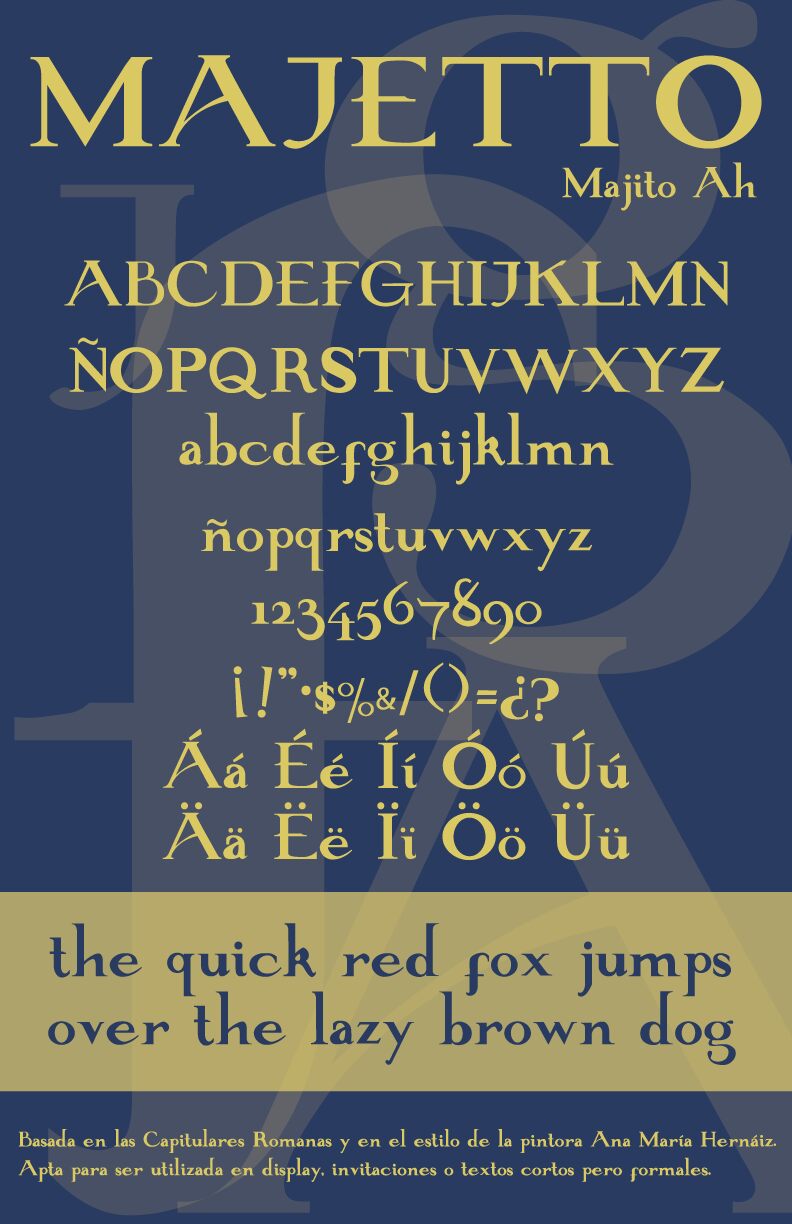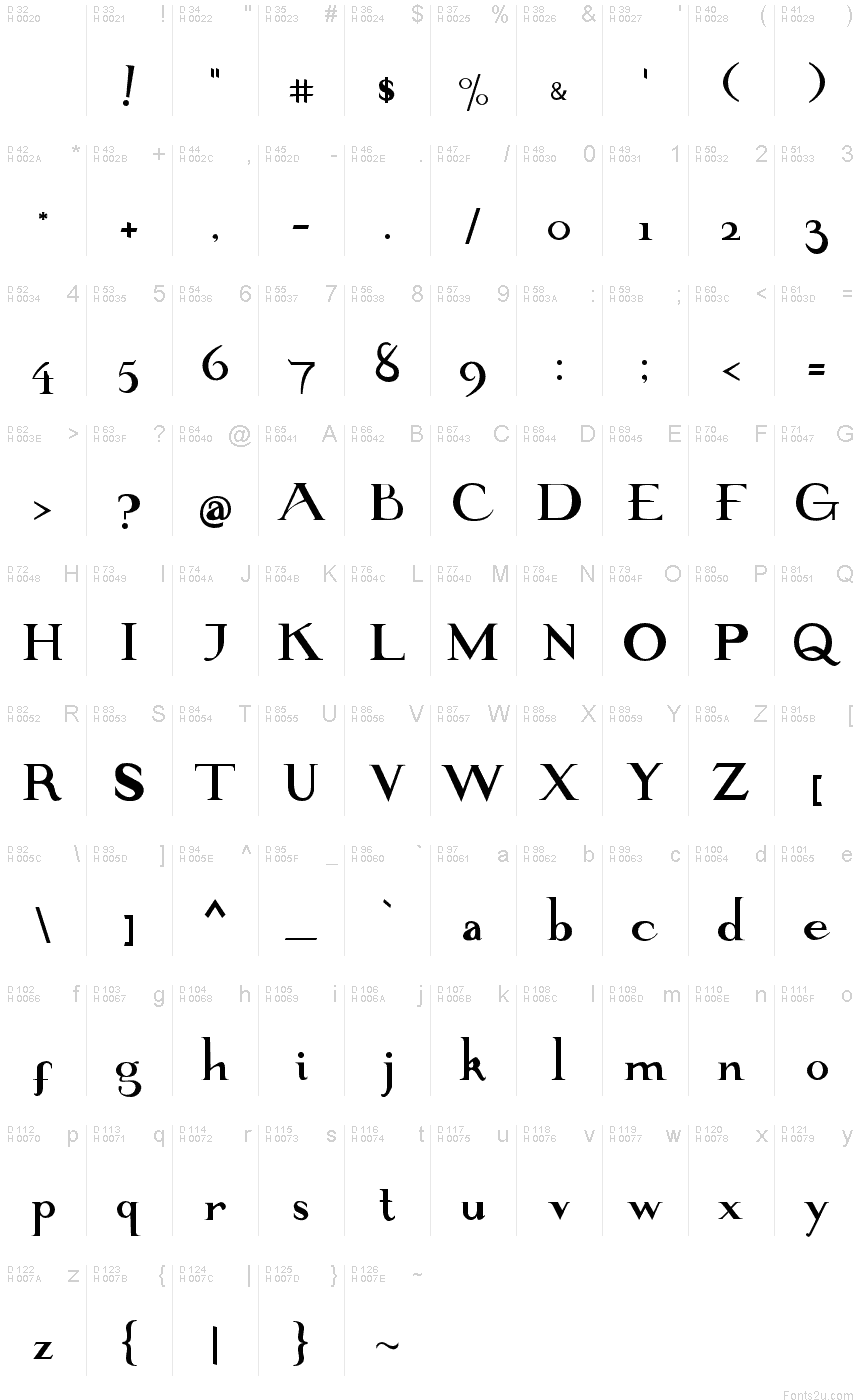
Majetto by Majito AH is a free high-contrast serif font with the poised scale and sharp refinement of fashion typography. Its broad capitals combine hairline strokes with commanding verticals, and the lowercase forms carry long, elegant curves. The spacing feels airy and formal.
Fashion magazine covers are its clearest setting, as the dramatic proportions frame photography with an editorial voice. The same cultivated drawing suits luxury packaging, cosmetics branding, and invitations aimed at an upscale audience. It is most convincing in publishing, especially when a masthead needs elegance with a slightly theatrical edge.
Majetto by Majito AH is a free, high-contrast serif font with broad capital letters, sharp serifs, wide curves, and lowercase letters that are substantially smaller in scale. It has pronounced thick-and-thin strokes and curved capital forms.